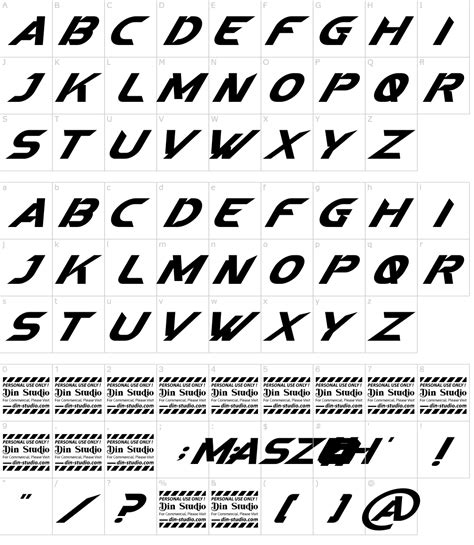
Maszeh Font: The Ultimate Guide
Hey guys! Ever stumbled upon a font that just clicks ? Maybe it’s got that perfect blend of modern and classic, or perhaps it’s just so darn readable that you can’t help but love it. Well, let’s dive deep into one such font: Maszeh Font . We’re going to explore everything about it, from its origins and design characteristics to how you can use it in your projects. So, buckle up and get ready for the ultimate guide on Maszeh Font!
What is Maszeh Font?
So, what exactly is Maszeh Font? In simple terms, it’s a typeface designed with a unique blend of modern aesthetics and functional readability. Fonts, like Maszeh, are more than just how letters look; they evoke feelings and set the tone for whatever message you’re trying to convey. Think of it this way: you wouldn’t write a heartfelt love letter in Comic Sans, would you? (Okay, maybe some people would, but you get the point!). Maszeh stands out because it aims to strike a balance, making it versatile for various applications.
The beauty of Maszeh Font lies in its clean lines and balanced proportions. It’s not overly decorative, which means it doesn’t distract the reader, but it’s also not bland or generic. The designers behind Maszeh seem to have focused on creating a typeface that feels contemporary yet timeless. This makes it suitable for everything from website headers and body text to branding materials and print publications. When you choose a font, you’re choosing a voice for your content. Maszeh Font offers a voice that is clear, confident, and modern. It subtly communicates professionalism and attention to detail, which can significantly enhance your project’s overall appeal. The versatility of Maszeh Font also stems from its availability in various weights and styles. This allows designers to create a visual hierarchy within their designs, emphasizing key information and guiding the reader’s eye. For example, you might use a bold weight for headings to grab attention and a lighter weight for body text to ensure readability. Beyond its aesthetic qualities, Maszeh Font is also designed with legibility in mind. The spacing between letters and the overall shape of each character are carefully considered to ensure that the text is easy to read, even at smaller sizes. This is particularly important for digital applications where users may be viewing content on various screen sizes and resolutions. Ultimately, Maszeh Font is a tool that empowers designers to communicate effectively and create visually appealing designs. Its versatility, readability, and modern aesthetic make it a valuable asset in any designer’s toolkit. Whether you’re working on a website, a print brochure, or a branding project, Maszeh Font can help you elevate your work and make a lasting impression.
Key Characteristics of Maszeh Font
Alright, let’s get a bit more specific. What makes Maszeh Font, well, Maszeh ? It’s all in the details, guys! Think about the fonts you love. What is it about them? Is it the curves, the sharp edges, or maybe just the overall vibe? Maszeh has some standout characteristics that make it a go-to for many designers.
One of the primary characteristics of Maszeh Font is its clean and modern design. The letterforms are typically geometric, with precise lines and balanced curves. This gives the font a sophisticated and contemporary feel, making it suitable for projects that require a touch of elegance and professionalism. The simplicity of Maszeh Font also contributes to its versatility, allowing it to be used in a wide range of applications without feeling out of place. Another key feature of Maszeh Font is its excellent readability. The designers have paid close attention to the spacing between letters and the overall proportions of each character to ensure that the text is easy to read, even at smaller sizes. This makes Maszeh Font a great choice for body text, where readability is paramount. The clear and legible letterforms minimize eye strain and allow readers to focus on the content without distraction. Maszeh Font often comes in a variety of weights and styles, providing designers with a flexible toolkit for creating visual hierarchy and adding emphasis to their designs. The availability of different weights, such as light, regular, bold, and black, allows designers to create contrast and draw attention to important elements. Different styles, such as italic and condensed, further enhance the font’s versatility and make it suitable for a wide range of design applications. The consistent design language across all weights and styles ensures a cohesive and professional look. Maszeh Font is known for its balanced proportions and harmonious letterforms. The height, width, and spacing of each character are carefully considered to create a visually pleasing and balanced appearance. This attention to detail enhances the font’s overall aesthetic appeal and makes it a pleasure to read. The balanced proportions also contribute to the font’s versatility, allowing it to be used in a variety of design contexts without feeling overwhelming or out of place. The subtle details and nuances in Maszeh Font add to its character and make it stand out from other fonts. These details might include unique letterforms, distinctive terminals, or carefully crafted serifs (if the font is a serif typeface). These subtle touches can add personality and charm to the font, making it more memorable and engaging. However, the details are never so prominent that they distract from the font’s overall readability and usability. In summary, Maszeh Font is characterized by its clean and modern design, excellent readability, variety of weights and styles, balanced proportions, and subtle details. These features combine to make it a versatile and appealing typeface that can be used in a wide range of design projects. Whether you’re designing a website, creating a print brochure, or developing a branding identity, Maszeh Font can help you achieve a professional and visually stunning result.
Where to Use Maszeh Font
Okay, so you’re digging the Maszeh Font vibe, but where can you actually use it? Good question! This font isn’t a one-trick pony; it’s pretty versatile. Let’s run through some scenarios where Maszeh can really shine.
Maszeh Font is incredibly versatile, making it suitable for a wide array of design applications. One of the most common uses for Maszeh Font is in website design. Its clean lines and excellent readability make it an ideal choice for both headings and body text. Using Maszeh Font for website headings can create a strong and modern visual impact, drawing the user’s attention and establishing a clear hierarchy. When used for body text, Maszeh Font ensures that the content is easy to read, even on smaller screens, providing a seamless user experience. Its contemporary aesthetic can also enhance the overall look and feel of the website, giving it a professional and polished appearance. Beyond websites, Maszeh Font is also a great choice for branding and logo design. A well-designed logo is crucial for creating a strong brand identity, and the font you choose plays a significant role in conveying the brand’s message and values. Maszeh Font ’s modern and sophisticated look can help create a logo that is both memorable and impactful. Its clean lines and balanced proportions communicate professionalism and attention to detail, which can be particularly important for brands that want to project an image of trustworthiness and reliability. Whether you’re designing a logo for a tech company, a creative agency, or a retail business, Maszeh Font can help you create a visual identity that stands out from the competition. In the realm of print design, Maszeh Font is equally valuable. It can be used in brochures, magazines, posters, and other printed materials to create a visually appealing and easy-to-read layout. Its excellent readability makes it an ideal choice for body text, ensuring that the content is accessible and engaging. The different weights and styles available in Maszeh Font allow designers to create visual hierarchy and add emphasis to important information. Whether you’re designing a marketing brochure or a corporate report, Maszeh Font can help you create a professional and polished final product. Furthermore, Maszeh Font is also suitable for use in user interface (UI) design. The design of a user interface is critical for creating a positive user experience, and the font you choose plays a crucial role in ensuring that the interface is easy to navigate and understand. Maszeh Font ’s clean and legible letterforms make it an excellent choice for UI elements such as buttons, labels, and menus. Its modern aesthetic can also enhance the overall look and feel of the interface, making it more appealing to users. Whether you’re designing a mobile app or a desktop application, Maszeh Font can help you create a user interface that is both functional and visually stunning. Finally, Maszeh Font can also be used in editorial design. Editorial design involves the layout and typography of books, newspapers, and magazines. The goal of editorial design is to create a visually engaging and easy-to-read publication that effectively communicates the content to the reader. Maszeh Font ’s excellent readability and balanced proportions make it an ideal choice for body text in editorial design. Its modern aesthetic can also enhance the overall look and feel of the publication, making it more appealing to readers. Whether you’re designing a novel or a magazine, Maszeh Font can help you create a publication that is both beautiful and informative. In conclusion, Maszeh Font is a versatile typeface that can be used in a wide range of design applications, including website design, branding, print design, UI design, and editorial design. Its clean lines, excellent readability, and modern aesthetic make it an ideal choice for projects that require a touch of elegance and professionalism.
Examples of Maszeh Font in Action
Alright, enough theory! Let’s see Maszeh Font in the wild. Sometimes, the best way to understand a font is to see how it’s being used in real-world projects. These examples should give you some inspiration and a better idea of its capabilities.
One great example of Maszeh Font in action is its use in website design. Imagine a sleek, modern website for a tech startup. The headings are bold and impactful, set in Maszeh Font ’s heavier weight, instantly grabbing the visitor’s attention. The body text, on the other hand, is clean and legible, rendered in Maszeh Font ’s regular weight, ensuring a comfortable reading experience. The overall design feels professional and contemporary, thanks in no small part to the font choice. The consistent use of Maszeh Font throughout the website creates a cohesive visual identity, reinforcing the brand’s message and values. The clean lines and balanced proportions of the font communicate trustworthiness and attention to detail, which are essential for building credibility in the tech industry. The website’s design not only looks visually appealing but also provides a seamless user experience, making it easy for visitors to find the information they need. Another compelling example of Maszeh Font ’s effectiveness is in branding and logo design. Picture a minimalist logo for a high-end fashion brand. The brand name is elegantly displayed in Maszeh Font , with subtle spacing and kerning adjustments to enhance its visual appeal. The font’s sophisticated and modern look perfectly complements the brand’s image of luxury and exclusivity. The logo stands out from the competition, thanks to the unique letterforms and balanced proportions of Maszeh Font . The font’s versatility allows it to be used in various applications, from business cards to social media graphics, maintaining a consistent brand identity across all channels. The logo design effectively conveys the brand’s message of style, elegance, and sophistication, leaving a lasting impression on customers. The choice of Maszeh Font reflects the brand’s commitment to quality and attention to detail, reinforcing its position as a leader in the fashion industry. In the realm of print design, Maszeh Font shines in brochures and magazines. Envision a beautifully designed brochure for a luxury hotel. The headlines are bold and captivating, set in Maszeh Font ’s black weight, enticing readers to explore further. The body text is clear and concise, rendered in Maszeh Font ’s light weight, providing detailed information about the hotel’s amenities and services. The brochure’s layout is clean and organized, with plenty of white space to enhance readability. The use of Maszeh Font throughout the brochure creates a consistent visual style, reinforcing the hotel’s brand identity. The print design effectively conveys the hotel’s message of luxury, comfort, and relaxation, encouraging readers to book a stay. The choice of Maszeh Font reflects the hotel’s commitment to quality and attention to detail, ensuring that the brochure stands out from the competition. Finally, in the realm of user interface (UI) design, Maszeh Font demonstrates its versatility in mobile apps. Imagine a sleek and intuitive mobile app for a fitness tracker. The app’s interface is clean and easy to navigate, with buttons and labels clearly displayed in Maszeh Font . The font’s modern and legible letterforms ensure that users can quickly understand the app’s features and functionality. The app’s design is consistent across all screens, creating a seamless user experience. The choice of Maszeh Font reflects the app’s commitment to simplicity and user-friendliness, making it easy for users to track their fitness goals. The UI design effectively communicates the app’s message of health, wellness, and motivation, encouraging users to stay active and engaged. The app’s visual appeal is enhanced by the font’s modern aesthetic, making it a pleasure to use on a daily basis. These examples highlight the versatility and effectiveness of Maszeh Font in various design applications. Whether you’re working on a website, a branding project, a print brochure, or a mobile app, Maszeh Font can help you achieve a professional and visually stunning result.
Tips for Using Maszeh Font Effectively
Okay, so you’re sold on Maszeh Font. Awesome! But just having a great font isn’t enough. You need to know how to use it properly. Here are some tips to help you make the most of Maszeh Font and really make your designs pop.
To use Maszeh Font effectively, begin by understanding its strengths and limitations. Maszeh Font excels in conveying a modern and professional aesthetic, but it may not be the best choice for projects that require a more traditional or whimsical look. Before incorporating Maszeh Font into your design, consider the overall tone and message you want to convey. If your goal is to create a sleek and contemporary design, Maszeh Font can be an excellent choice. However, if you’re aiming for a more vintage or playful feel, you might want to explore other font options. By carefully assessing your project’s requirements, you can ensure that Maszeh Font aligns with your design goals. Another crucial tip for using Maszeh Font effectively is to pay attention to typography principles. Typography is the art and technique of arranging type to make written language legible, readable, and appealing when displayed. When working with Maszeh Font , consider factors such as letter spacing, line height, and font size. Proper letter spacing ensures that the text is easy to read and doesn’t appear too crowded or too sparse. Appropriate line height, also known as leading, improves readability by providing adequate vertical space between lines of text. Choosing the right font size is essential for ensuring that the text is legible and visually balanced within the design. By mastering these typography principles, you can enhance the overall impact of Maszeh Font and create visually stunning designs. Creating visual hierarchy is also crucial when using Maszeh Font . Visual hierarchy refers to the arrangement of design elements in a way that guides the viewer’s eye and emphasizes important information. When working with Maszeh Font , you can create visual hierarchy by using different font weights, sizes, and styles. For example, you might use a bold weight for headings to draw attention and a lighter weight for body text to ensure readability. You can also use different font sizes to create contrast and emphasize key messages. Additionally, you can use italics or other styles to highlight specific words or phrases. By strategically using these techniques, you can create a clear and effective visual hierarchy that helps viewers navigate and understand your design. Furthermore, it’s important to pair Maszeh Font with complementary fonts. While Maszeh Font is versatile, it can benefit from being paired with other fonts that complement its style and enhance its overall impact. When choosing fonts to pair with Maszeh Font , consider factors such as contrast, harmony, and readability. Look for fonts that have different characteristics but still work well together visually. For example, you might pair Maszeh Font with a serif font for a touch of elegance or a sans-serif font for a more modern look. Experiment with different font combinations to find the perfect pairing that enhances the overall design. Remember to use font pairing tools and resources to guide your decision-making process. By carefully selecting complementary fonts, you can create visually appealing and cohesive designs. Finally, consistency is key to using Maszeh Font effectively. Consistency refers to the practice of maintaining a uniform style and design throughout a project. When working with Maszeh Font , ensure that you use it consistently across all elements of your design, including headings, body text, and captions. Consistency helps create a cohesive visual identity and reinforces your brand’s message. Avoid using too many different fonts or styles, as this can create a cluttered and unprofessional look. Stick to a limited palette of fonts and use them consistently throughout your design. By maintaining consistency, you can create a polished and professional design that effectively communicates your message.
So there you have it – the ultimate guide to Maszeh Font! Hopefully, you now have a solid understanding of what it is, its key characteristics, where to use it, and how to use it effectively. Fonts are powerful tools, and Maszeh Font is definitely one you want in your arsenal. Now go out there and create some amazing designs!